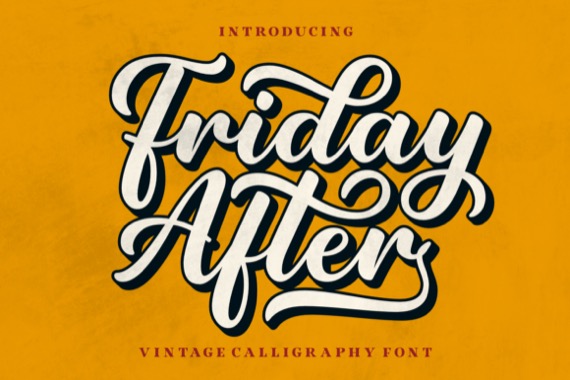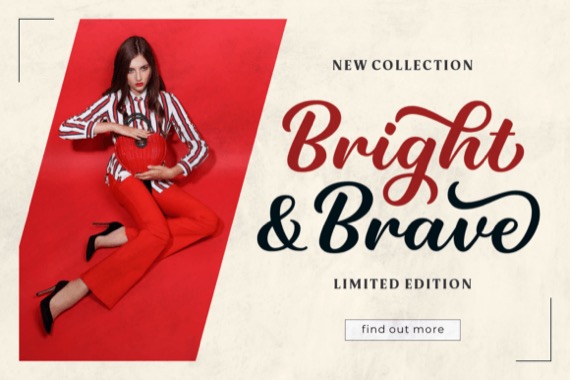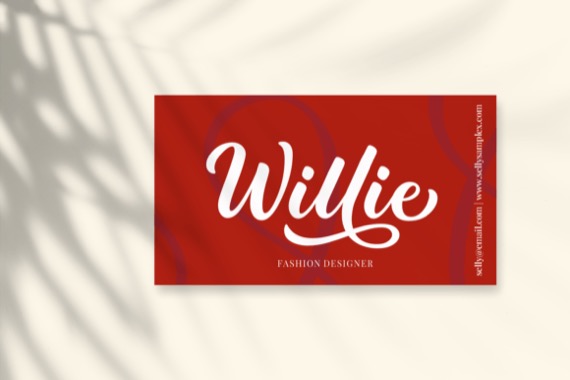
Friday After is a chic and elegant vintage calligraphy font that was published by Situjuh, it exudes timeless charm and sophistication. Inspired by the elegance of classical handwriting, this font features intricately crafted letterforms with graceful curves and delicate strokes. Its vintage appeal transports you to a bygone era, adding a touch of refinement to your designs. Perfect for invitations, greeting cards, and projects that require a touch of old-world beauty, Friday After captures the essence of traditional calligraphy with a hint of nostalgia. This font is PUA encoded which means you can access all of the amazing glyphs and ligatures with ease!
Friday After Calligraphy Font